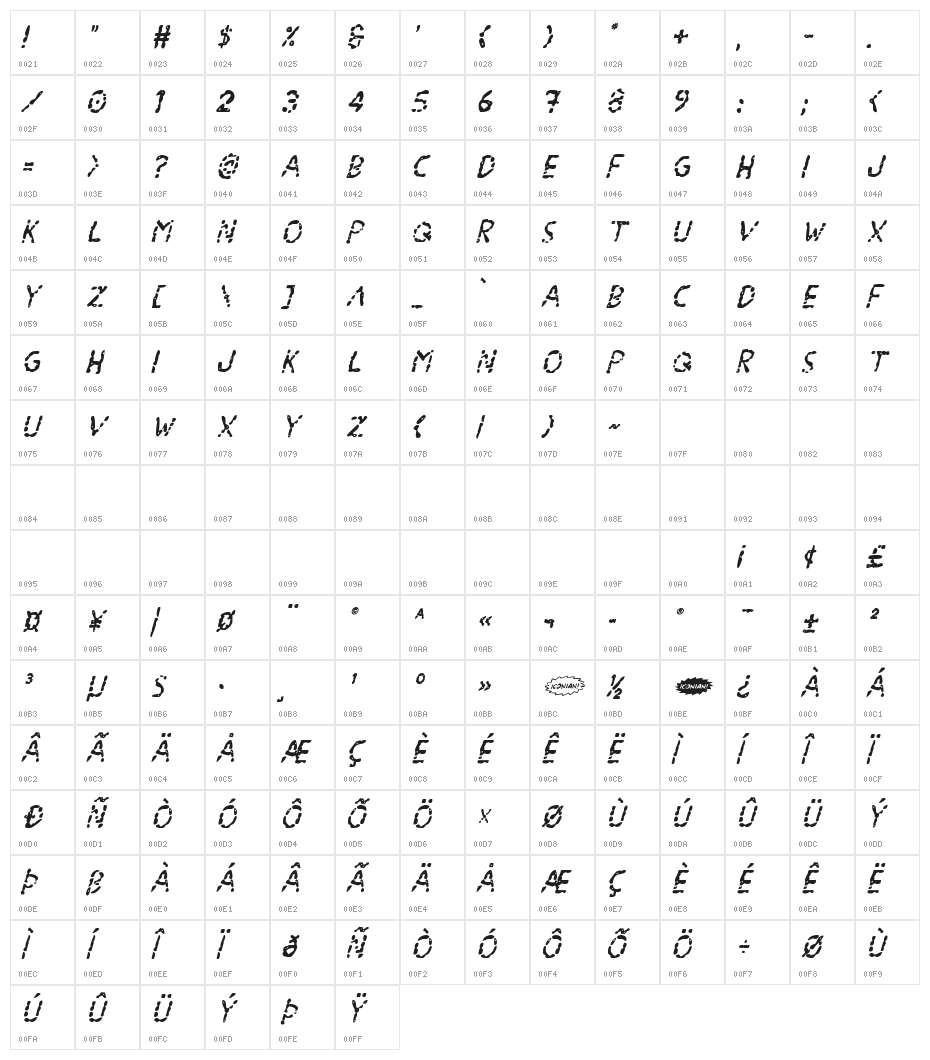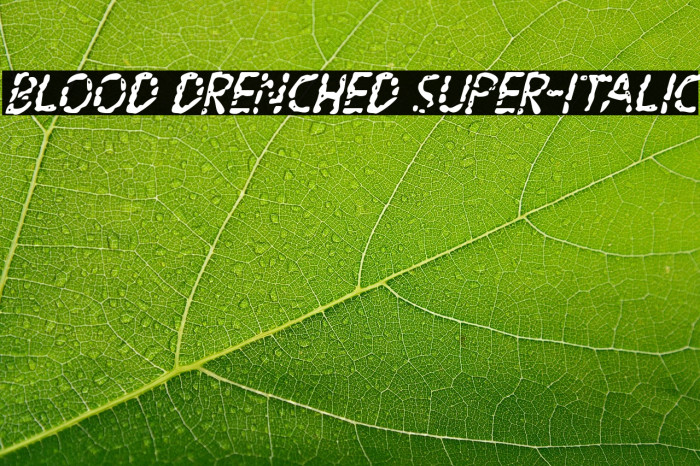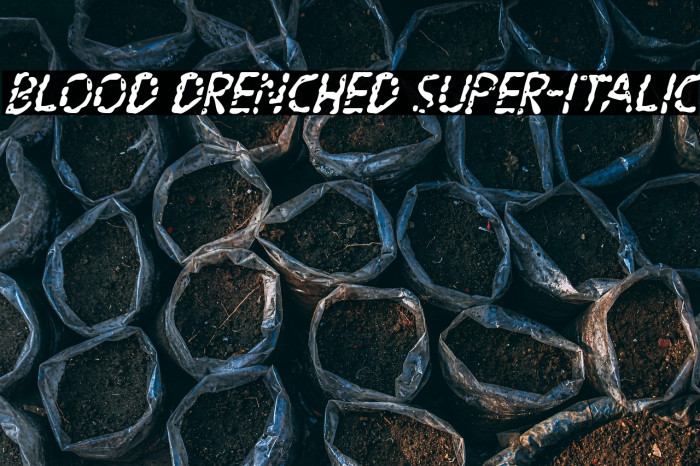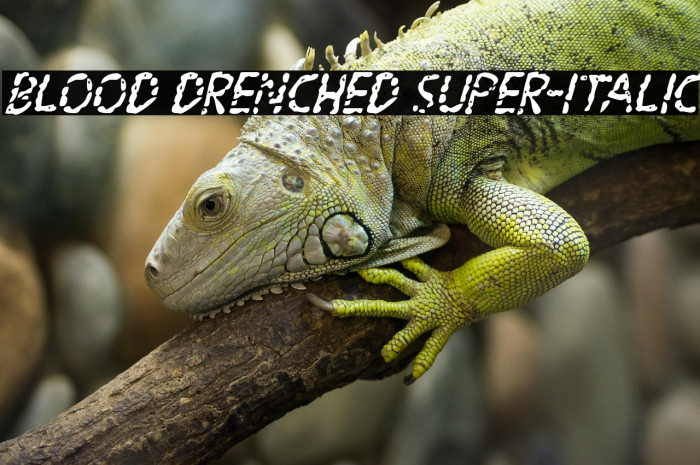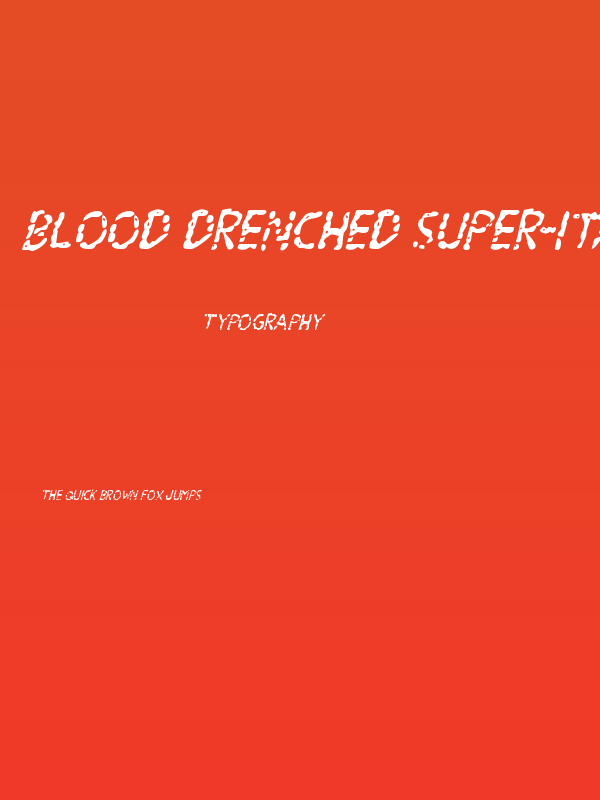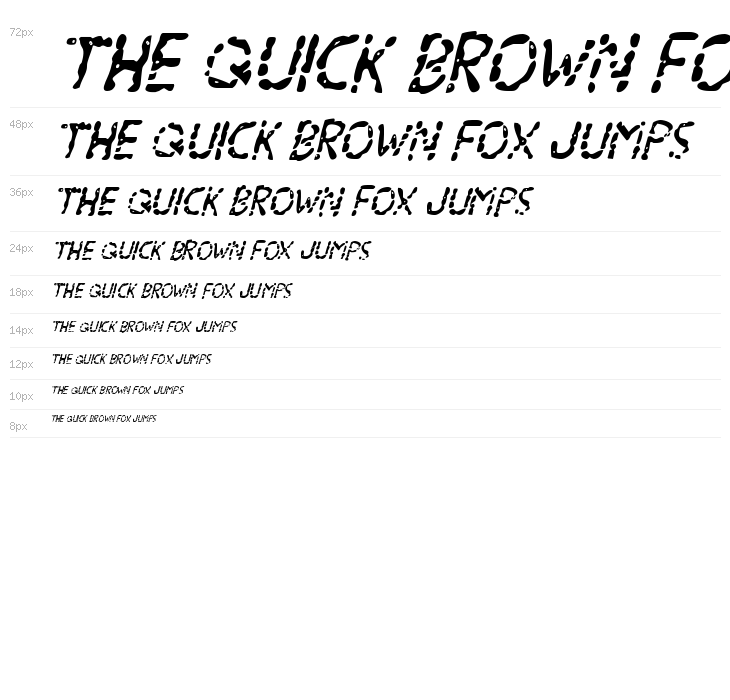
Blood Drenched Super-Italic Font
Blood Drenched Super-Italic Description
This font features a dramatic and bold style, characterized by its dripping, blood-like appearance. The letters are heavily stylized, with irregular edges and a sense of movement that suggests fluidity. The uppercase and lowercase letters maintain a consistent theme, with each character appearing as though it is formed from liquid droplets. The numbers and special characters follow the same design, enhancing the overall cohesive look. This font is highly decorative and eye-catching, making it ideal for projects that require a strong visual impact.
| Proposed Projects | Ideal for horror-themed posters, Halloween event invitations, or any project requiring a dramatic, eerie aesthetic. |